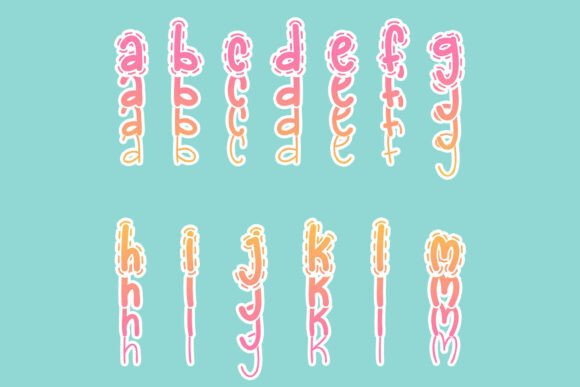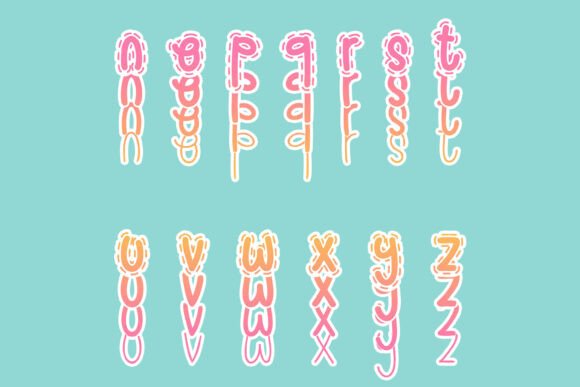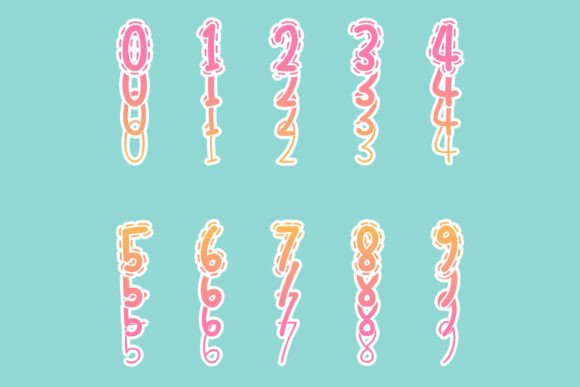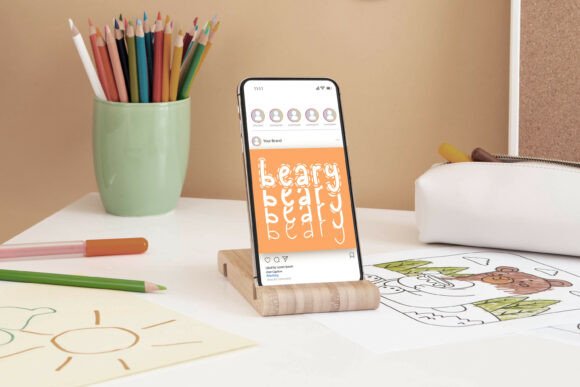
When Words Come Alive: Unleashing the Magic of Dashedline Stacked Font
Have you ever stared at a blank canvas, eager to bring a brand to life or convey a playful message? I’m sure many designers can relate to that creative moment when the right font can make all the difference. That’s where the Dashedline Stacked Font comes in – a bold and cheerful stacked font that’s bursting with personality.
Designed to add a touch of fun and vibrancy to your designs, this font is perfect for creating eye-catching posters, stickers, product packaging, and kids’ branding. With its bubbly letterforms and outlined top layer, the Dashedline Stacked Font is a valuable asset for designers looking to add a dash of playfulness to their projects.
Dashedline Stacked Font Key Features
- Font Family: Dashedline Stacked Font is a unique, hand-crafted font designed to mimic the appearance of dashed lines.
- Unique Characteristics: The font features a stacked, dashed line design that creates a visually interesting and eye-catching effect.
Dashedline Stacked Font Review
I recently had the chance to work with the Dashedline Stacked Font, and I must say it’s a unique addition to any design. ✨ Here are some of the things that work well:
- The font’s versatility in being both elegant and quirky makes it a great fit for various projects.
- The stacked design gives it a visually appealing three-dimensional feel, which can be used to great effect in titles and headings.
- The font’s customizability allows designers to adjust the spacing and alignment to fit their specific needs.
However, like any font, it’s not without its limitations. ⚠️ Here are some things to keep in mind:
- The font’s size can sometimes become overwhelming, especially when used in smaller text.
- The stacked design may not be suitable for all types of content, such as body text or lists.
- The font’s customizability can also make it feel a bit over-engineered, which may be off-putting to some designers.
Overall, I’d say the Dashedline Stacked Font is a solid choice for designers looking to add some visual interest to their projects. While it may not be perfect, its unique design and customizability make it a valuable addition to any design toolkit.
Dashedline Stacked Font: A Practical Application Guide
Tips for Getting the Most Out of Dashedline Stacked Font
Some tips for getting the most out of Dashedline Stacked Font include:
- Use it sparingly to add a touch of whimsy and personality to your design.
- Pair it with other fonts to create a unique and eye-catching look.
- Experiment with different sizes and colors to create a custom look.
Some common use cases for Dashedline Stacked Font include:
- Designing children’s books and educational materials.
- Creating playful and whimsical branding
Alternatives to Dashedline Stacked Font
1. Waterfall Font
The Waterfall Font is a typographic treatment that involves arranging text in a flowing, stepped manner, with each line building upon the previous one. It’s often used in design elements such as headers, titles, and quotes.
Compared to Dashedline Stacked Font, Waterfall Font creates a more fluid and organic feel, while Dashedline Stacked Font is more rigid and geometric. Use Waterfall Font when you want to convey a sense of movement and flow in your design.
2. Inset Stacked Font
The Inset Stacked Font is a variation of the stacked font style where the text is indented, creating a sense of depth and dimensionality. It’s often used in headings, titles, and body text where a clear hierarchy is needed.
Compared to Dashedline Stacked Font, Inset Stacked Font adds a layer of visual interest through the indentation, while Dashedline Stacked Font relies on the dashed line to create contrast. Use Inset Stacked Font when you want to create a sense of layering and visual hierarchy in your design.
Q: Is Dashedline Stacked Font compatible with accessibility guidelines?
Dashedline Stacked Font can be a bit challenging to read for users with visual impairments, as the dashed lines can create a visual noise that may interfere with text recognition. To ensure accessibility, it’s recommended to use Dashedline Stacked Font sparing